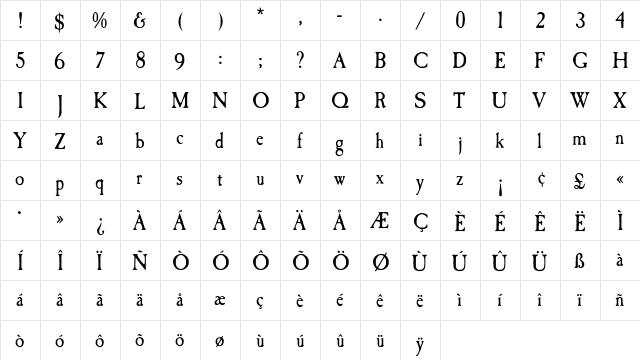
CaslonAntiqueEF Regular
Design Context for CaslonAntiqueEF Typeface
CaslonAntiqueEF has the warm character of retro typography — evoking diners, record sleeves, and the golden age of print advertising.
Font Pairing: Combine CaslonAntiqueEF with a simple slab or neutral sans — period-accurate companions reinforce the vintage feel without competing for attention.
Pro Tip: Lean into CaslonAntiqueEF's period character by pairing it with aged paper textures, muted colour palettes, and vintage illustration styles.